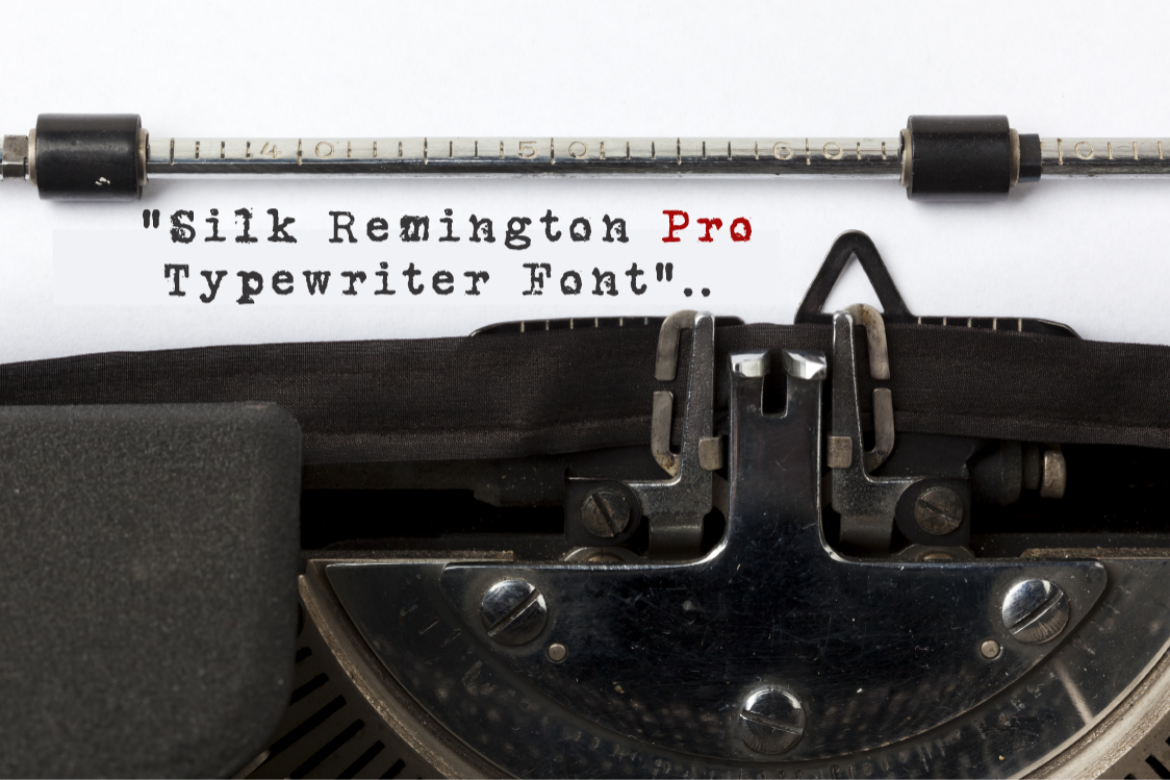
Silk Remington PRO Typewriter Font-14 Variations
In a world where the clack of keys resonates with nostalgia and every letter forms a bridge to the past, the Silk Remington typewriter font emerges as a herald of versatility and elegance. Reshaped just three years ago to embrace the beauty of multiple languages, this remarkable font doesn't merely tell tales of classic typography; it dances across the sheets with a myriad of 14 variations, each capturing a unique facet of its charm.
From the artistic flourish of French script to the crisp precision of German lettering, Silk Remington offers an impressive spectrum that appeals to designers, writers, and creatives alike. Here, vintage meets modern functionality, allowing projects to seamlessly weave cultures and styles into their narrative fabric. Whether you are crafting a heartfelt letter, designing an engaging poster, or laying down the text for an enchanting novel, the Judith Woolsey Contour variation entices with curvy elegance, while the ruggedness of Asher’s Block design lends a bold strength.
With such an extensive collection at your fingertips, Silk Remington stands unrivaled among typewriter fonts, making it the go-to choice for anyone seeking to evoke the spirit of classic literature without boundaries. Embrace the diversity wrapped up in these characters, and let each variation be a canvas where your words come to life, transforming the ordinary into the extraordinary. The only limit is your imagination, as Silk Remington invites you to forge new paths with every stroke of the key.
Jadugar Design Studio